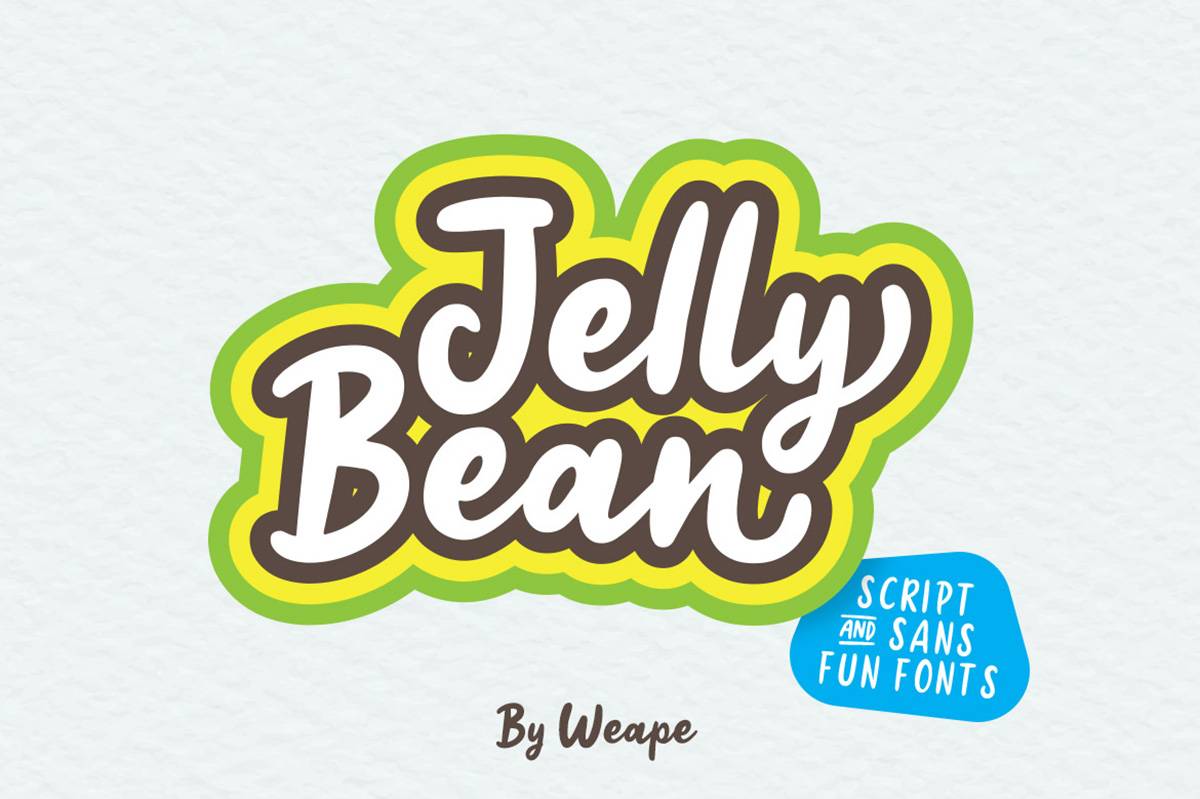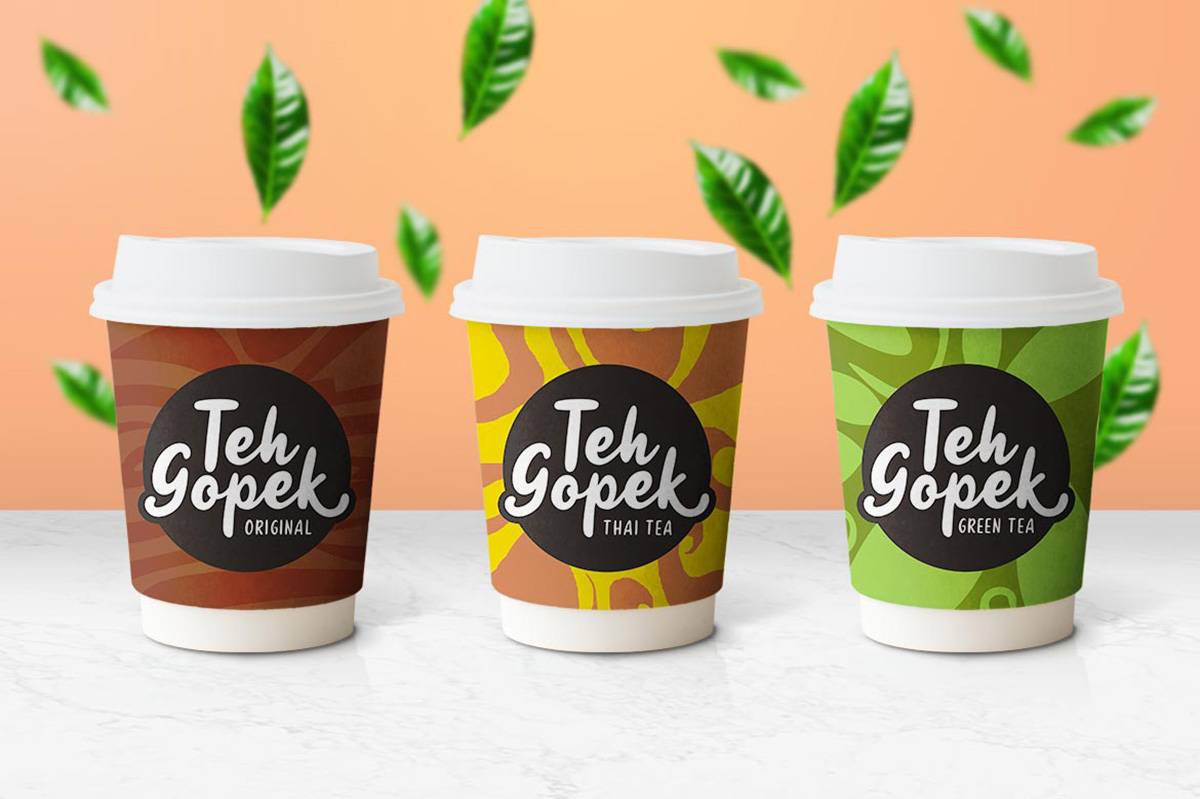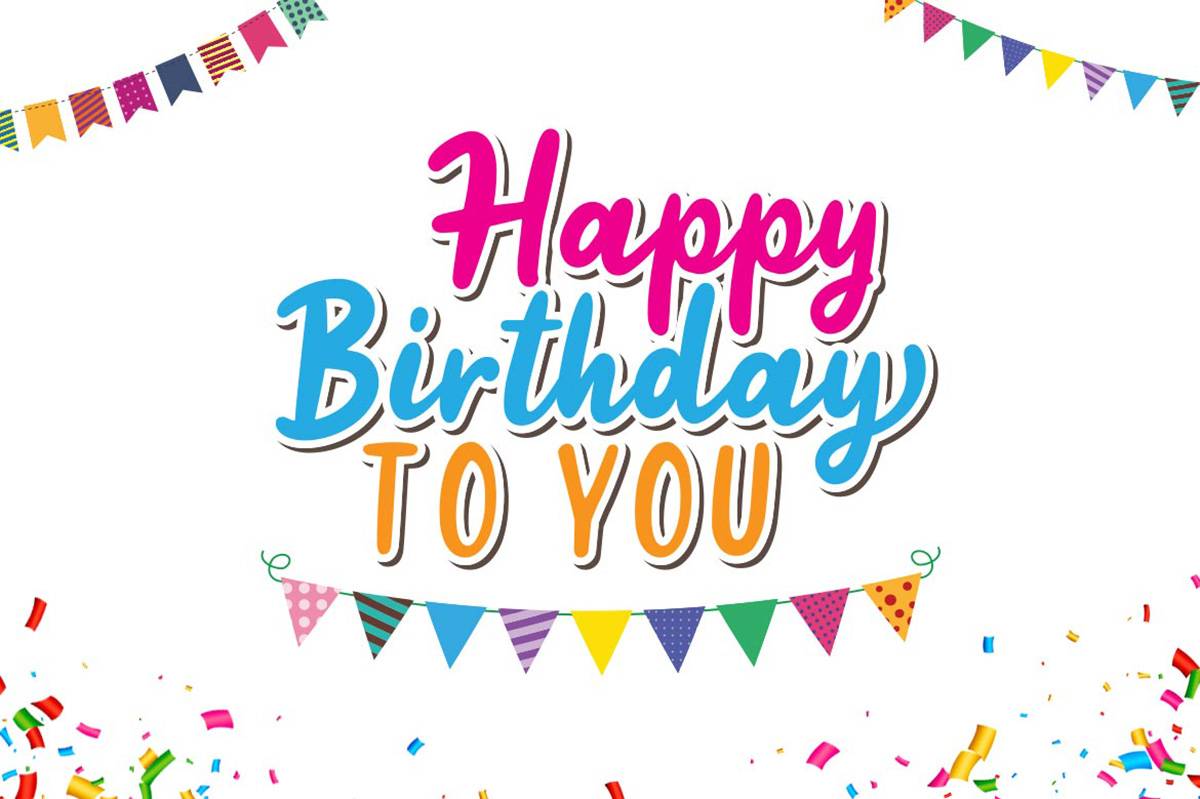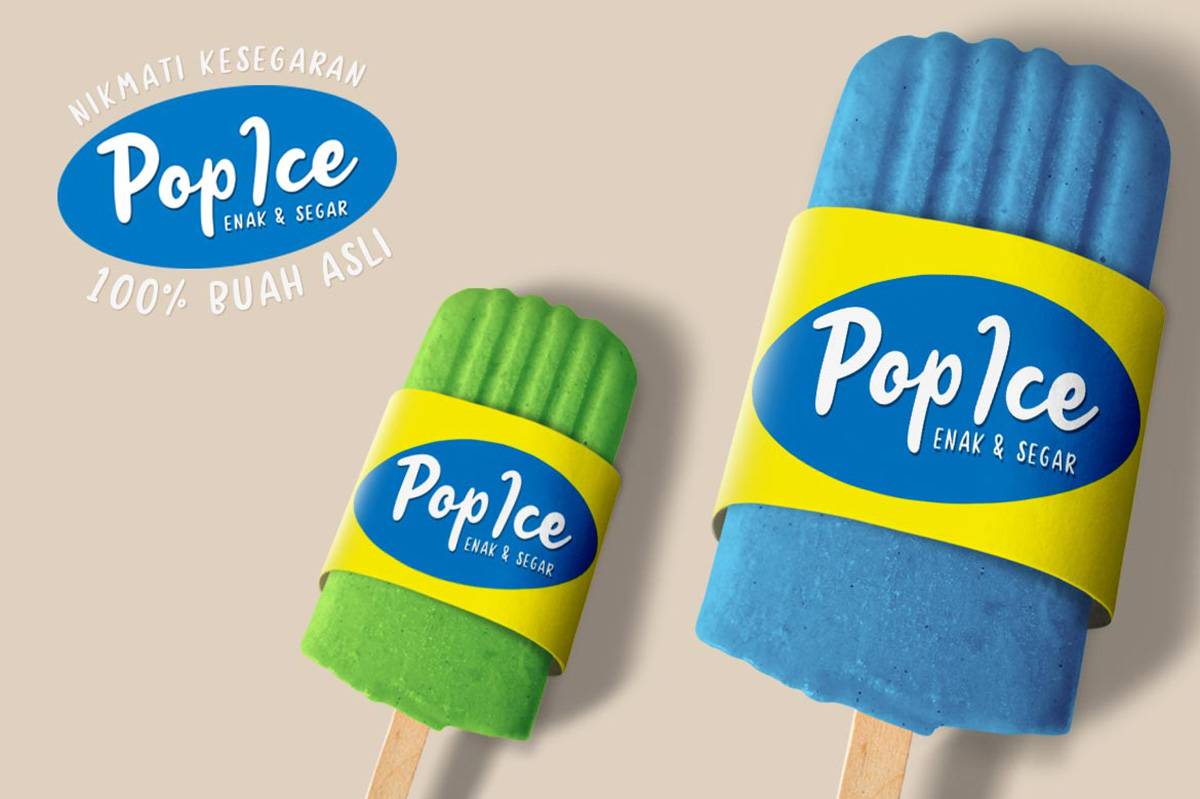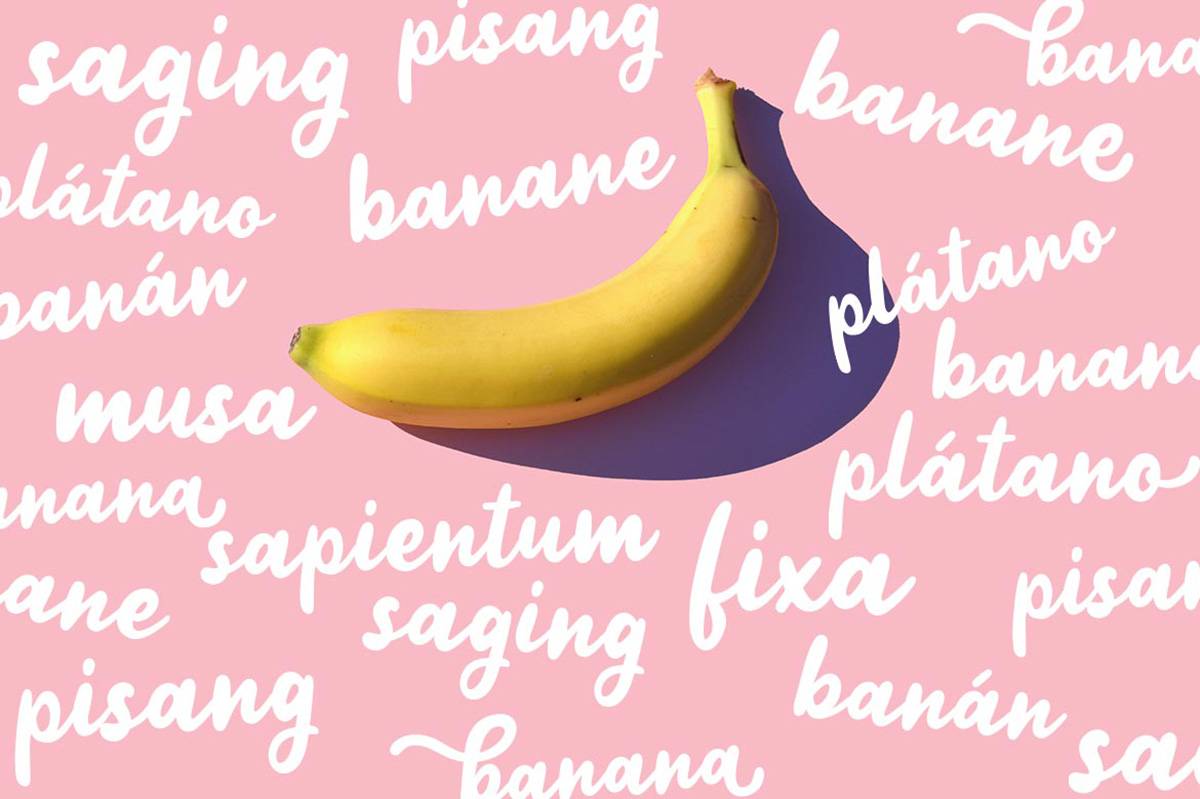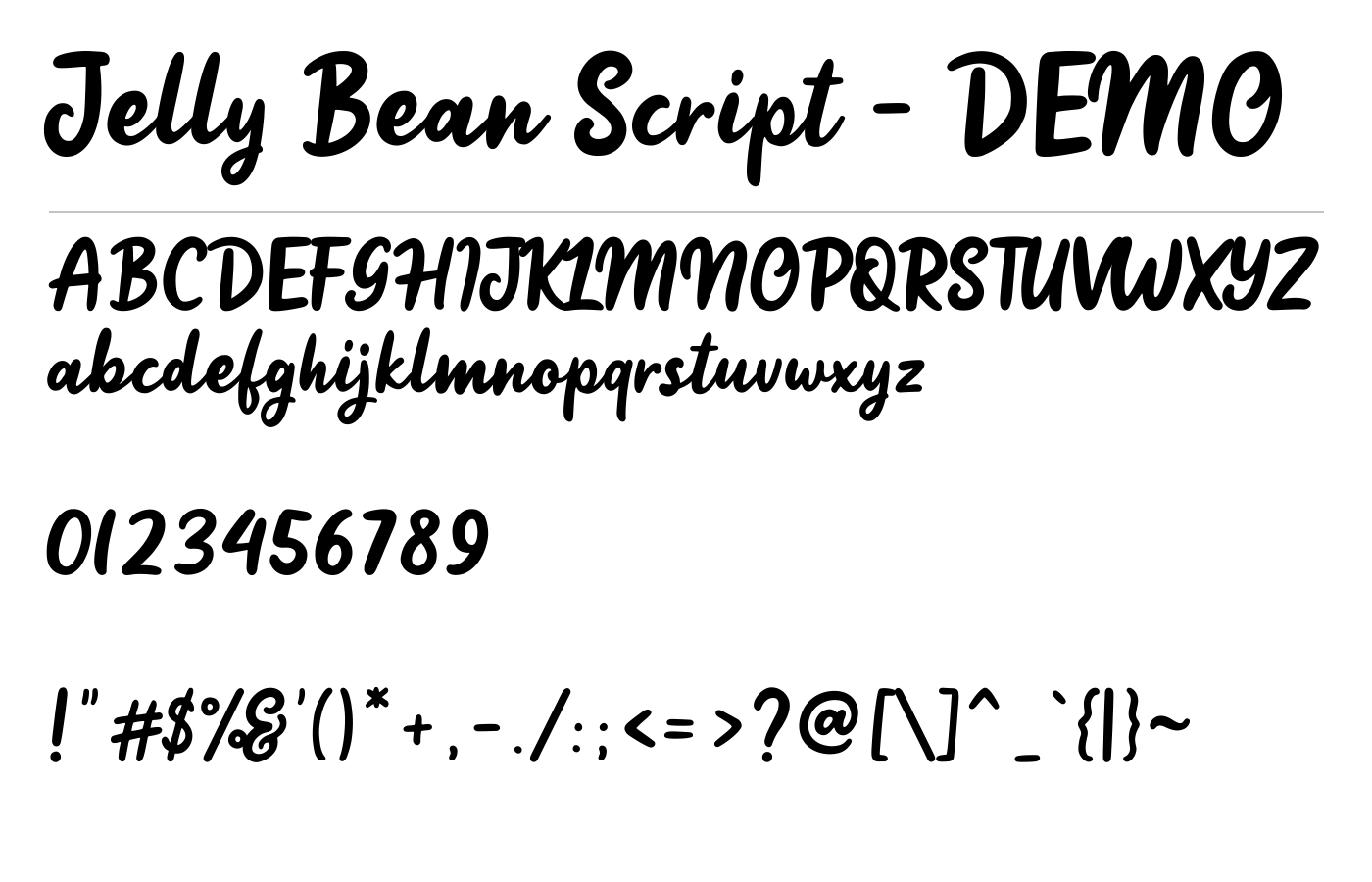
Jelly Bean is a casual, playful script font with a friendly, handwritten feel. Its smooth, rounded strokes and moderate contrast give it an approachable and energetic personality, perfect for informal branding, playful headlines, or creative projects aimed at a fun, youthful audience. This font works well in logos, posters, and packaging where a warm, inviting touch is desired.
Jelly Bean Font
About Jelly Bean Font
| Font family | Jelly Bean Font |
| Designer | Weape Studio |